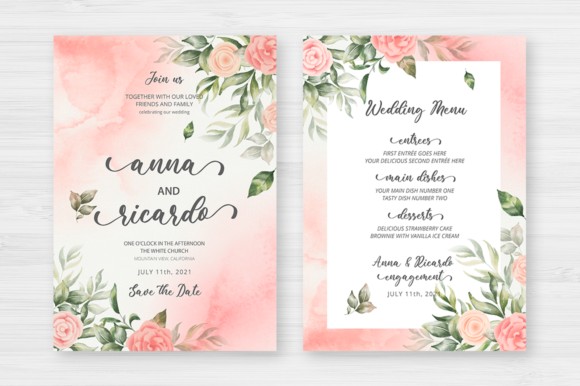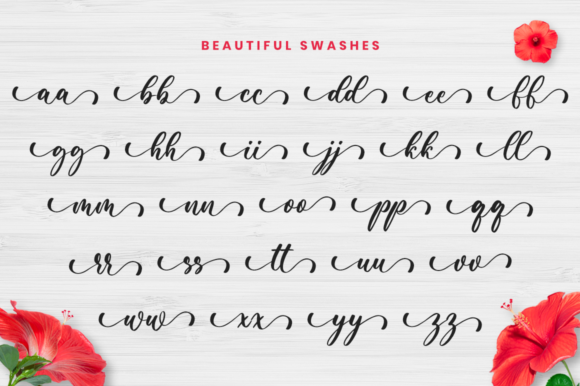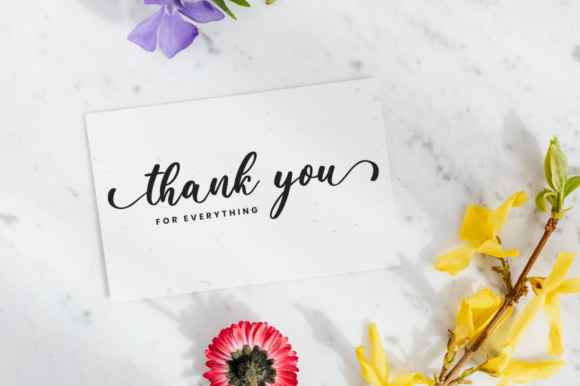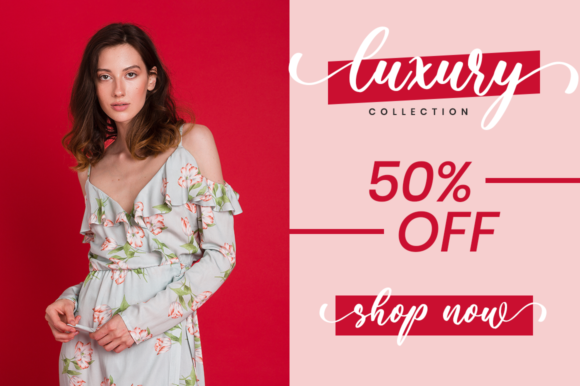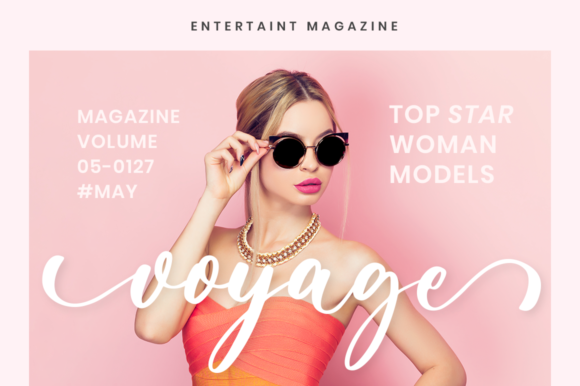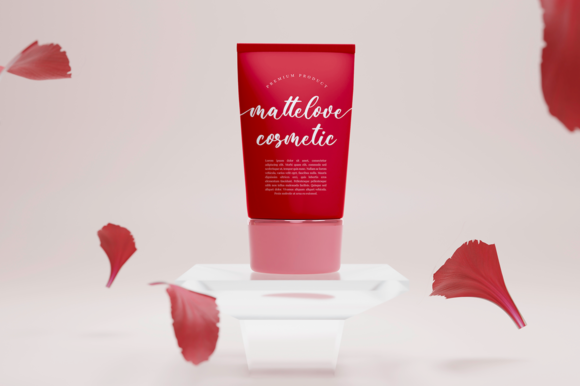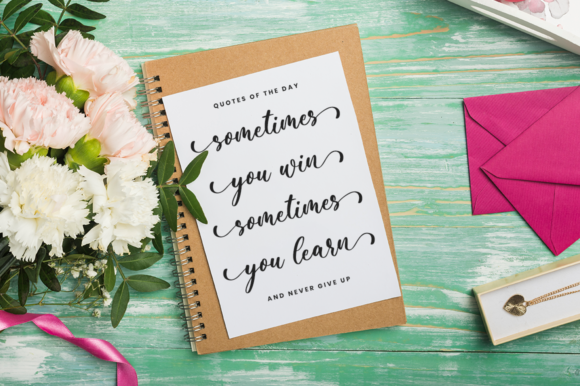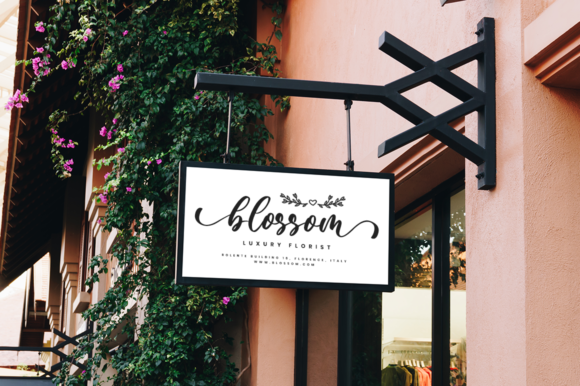
Beauty Flower Font
About Beauty Flower Font
Beauty Flower is a delicate and elegant handwritten font. Its distinct and well rounded letters make this font a masterpiece. Fall in love with its incredibly versatile style and use it to create spectacular designs! This font is PUA encoded which means you can access all of the glyphs and swashes with ease!